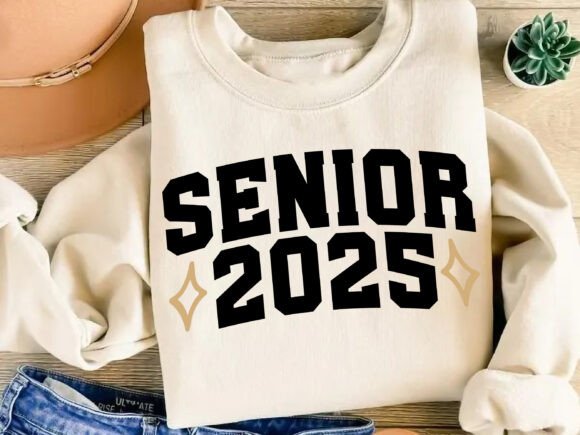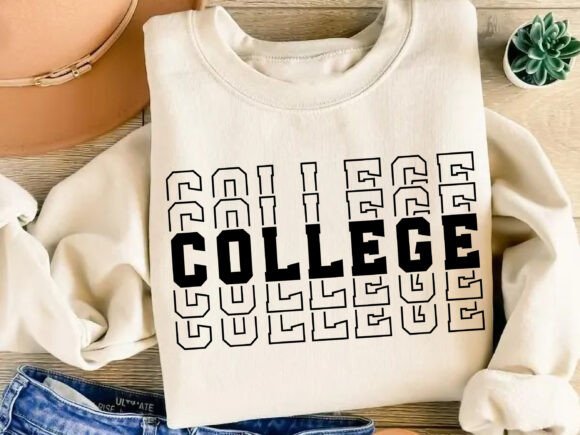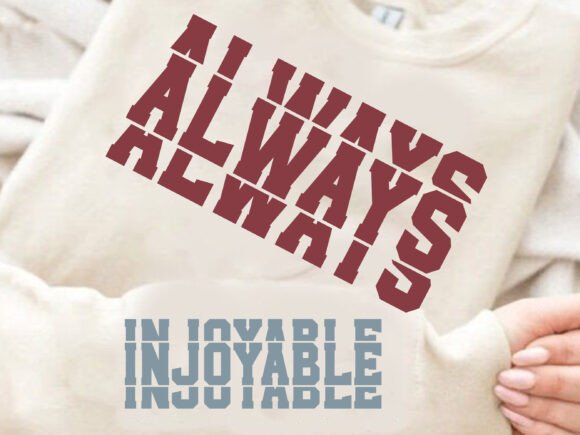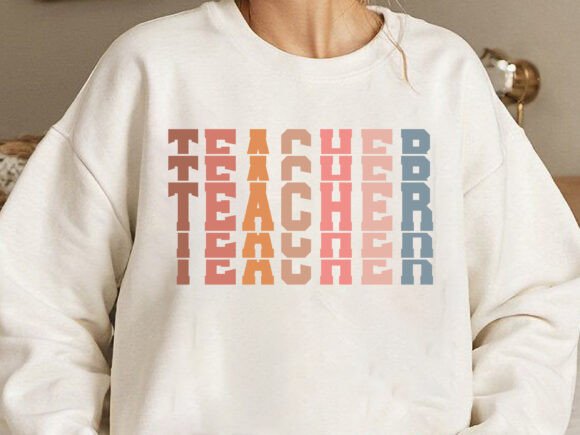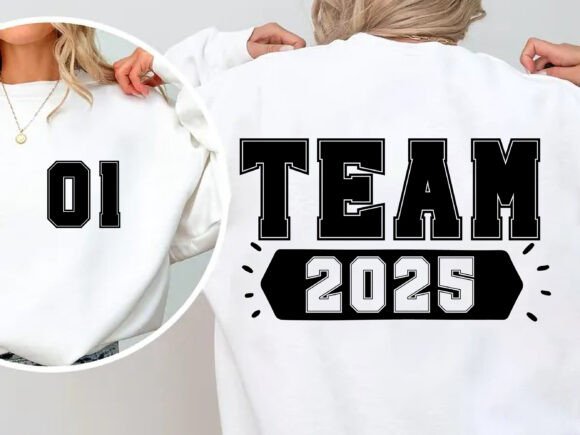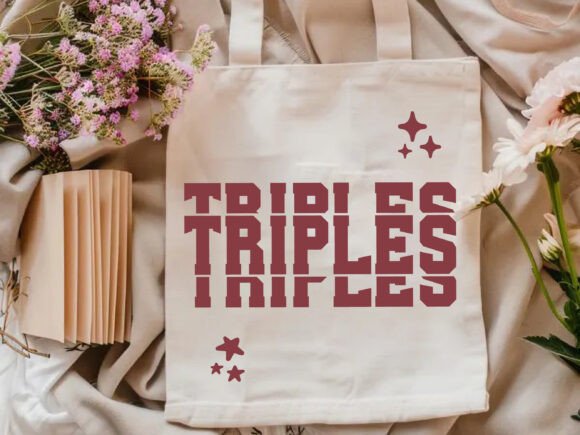
Introducing College Set Font: The Ultimate Retro Sports Font for Designers
Are you a sports enthusiast or a college fan looking for a font that captures the spirit of athleticism and school pride? Look no further than College Set Font, an incredibly cool display font inspired by the world of college and sports. With its retro sporty and college-style design, this font is perfect for designers and crafters who want to create bold and eye-catching designs.
What Makes College Set Font So Special?
College Set Font is a unique and stylish font that is sure to make a statement. Every letter has been carefully crafted to evoke the nostalgia of college sports and the excitement of game day. The font’s retro design is reminiscent of classic sports jerseys, team logos, and vintage posters, making it perfect for a wide range of design projects.
Perfect for Sports Enthusiasts and College Fans
Whether you’re designing a logo for a sports team, creating a poster for a college event, or making party invitations for a sports-themed bash, College Set Font is the perfect choice. The font’s bold and playful design is sure to grab attention and convey the excitement of sports and school spirit.
College Set Font is incredibly versatile and can be used for a wide range of design projects, including:
- Logotypes and branding
- Watermarks and social media graphics
- Product packaging and labels
- Team jerseys and sports apparel
- Party invitations and event decor
- Home decor items, such as pillows and wall art
How to Use College Set Font
Using College Set Font is easy and fun. Here are a few tips to get you started:
- Pair College Set Font with a bold color scheme to create a striking design
- Use the font to create a custom logo or branding for a sports team or college event
- Add a personal touch to party invitations and event decor with the font’s playful design
- Experiment with different font sizes and styles to create a unique look
Why Designers and Crafters Love College Set Font
College Set Font is a must-have for designers and crafters who want to create bold and eye-catching designs. Here are just a few reasons why:
- The font’s retro design is unique and stylish, making it perfect for designers who want to stand out
- The font is incredibly versatile and can be used for a wide range of design projects
- The font’s bold and playful design is sure to grab attention and convey the excitement of sports and school spirit
Get Inspired with College Set Font
See the previews above to get some inspiration on how to use College Set Font. With its retro sporty and college-style design, this font is sure to spark your creativity and inspire your next design project.
College Set Font is an incredibly cool display font that is perfect for designers and crafters who want to create bold and eye-catching designs. With its retro sporty and college-style design, this font is sure to make a statement and convey the excitement of sports and school spirit. Whether you’re designing a logo, creating a poster, or making party invitations, College Set Font is the perfect choice.